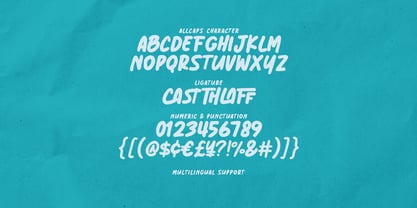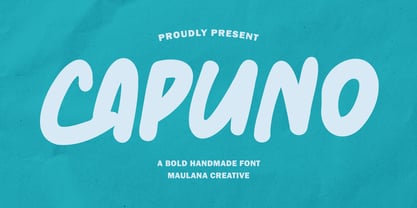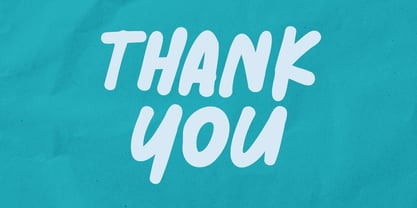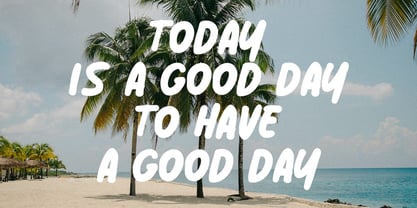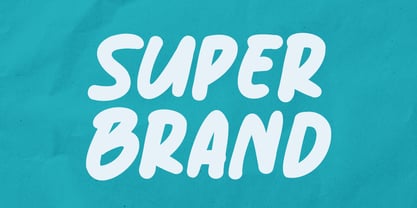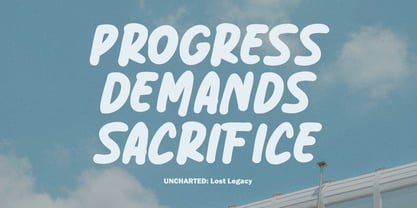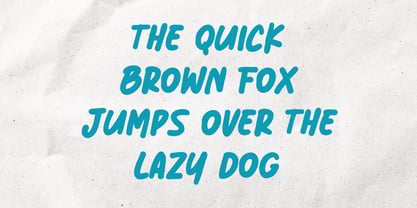
MC Capuno
by Maulana Creative
The MC Capuno Font Family was designed by Gilang Maulana and published by Maulana Creative. MC Capuno contains 1 styles. More about this family
Capuno is a bold handmade handwritten font. With bold stroke, fun character with a bit of ligatures. To give you an extra creative work. Capuno font support multilingual more than 100+ language. This font is good for logo design, Social media, Movie Titles, Books Titles, a short text even a long text letter and good for your secondary text font with sans or serif. Make a stunning work with Capuno font.
Designers: Gilang Maulana
Foundry: Maulana Creative